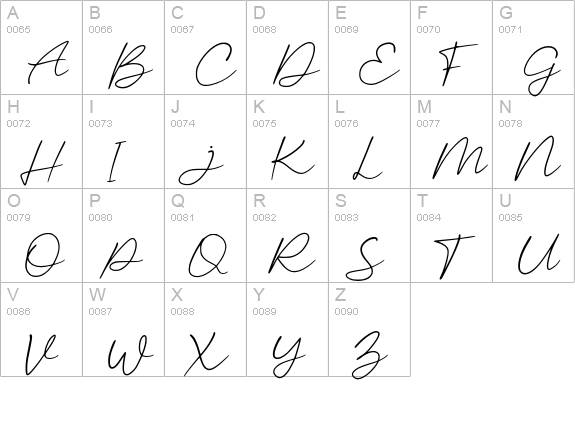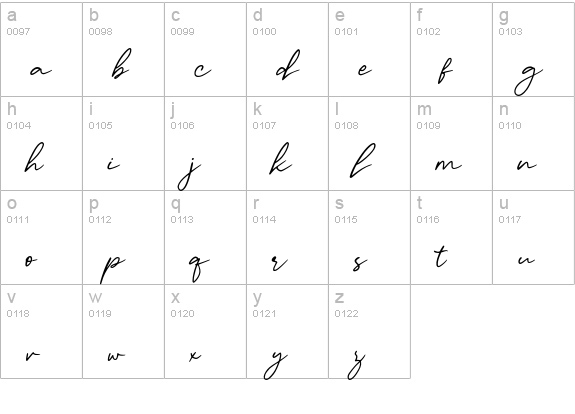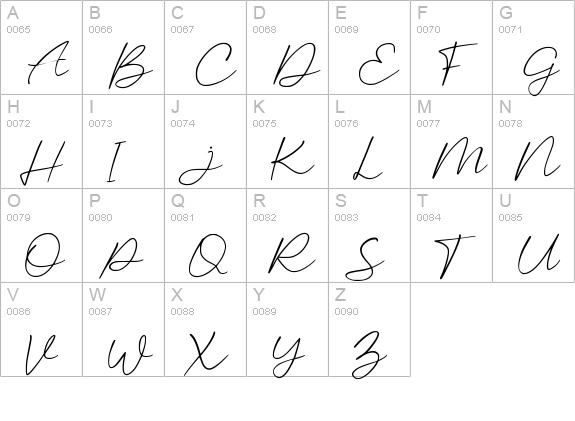
Audys font is a stylish and modern typeface that exudes elegance and sophistication. With its sleek lines and unique design, Audys is sure to make a statement in any project. This versatile font is perfect for a wide range of applications, from branding and advertising to invitations and social media graphics.